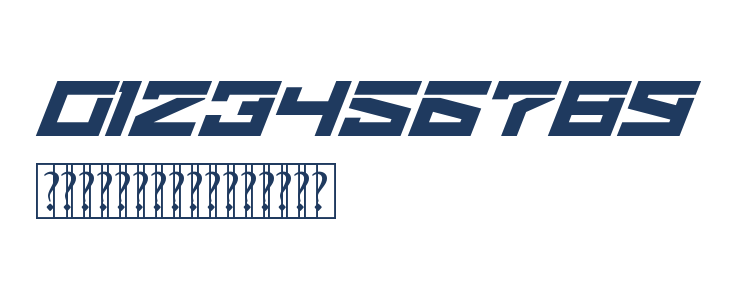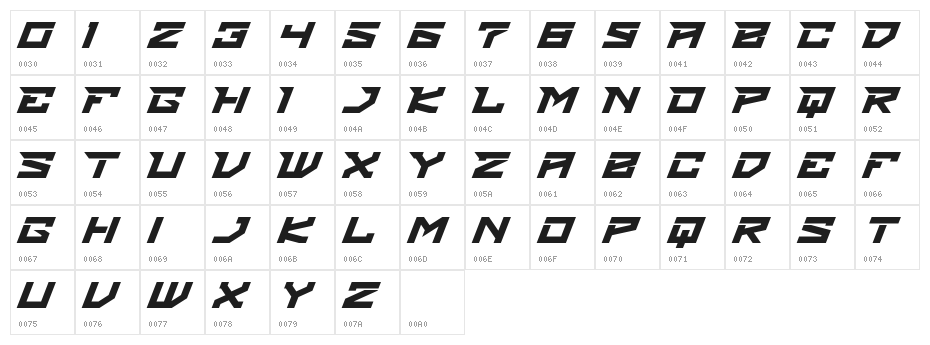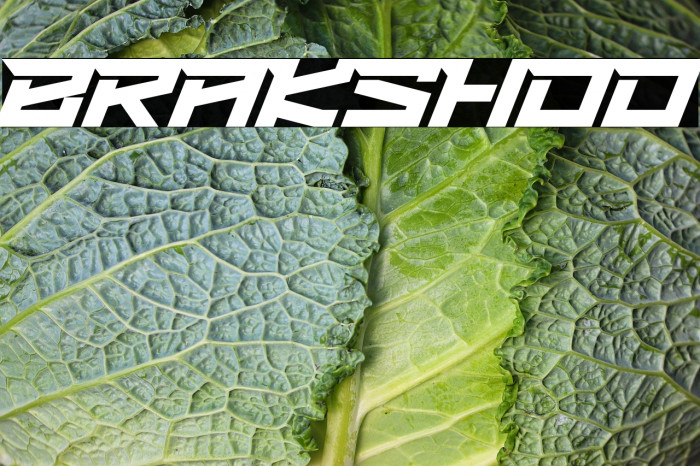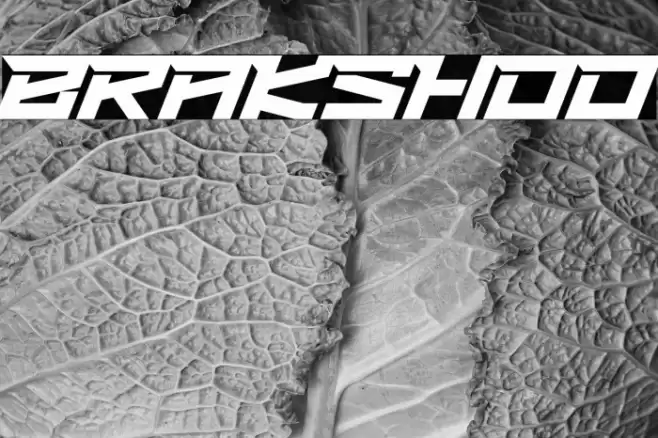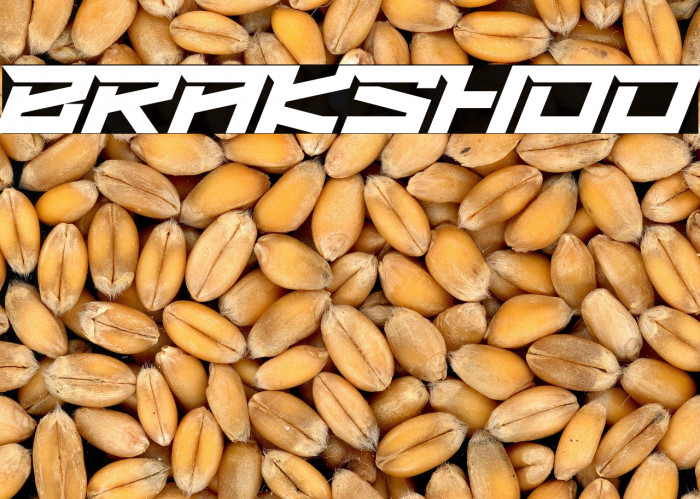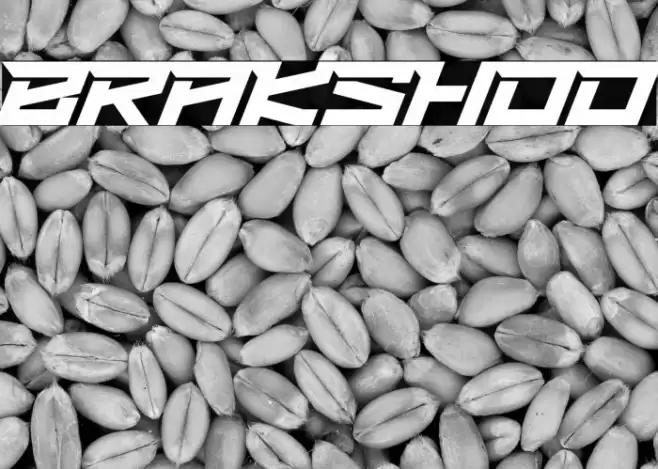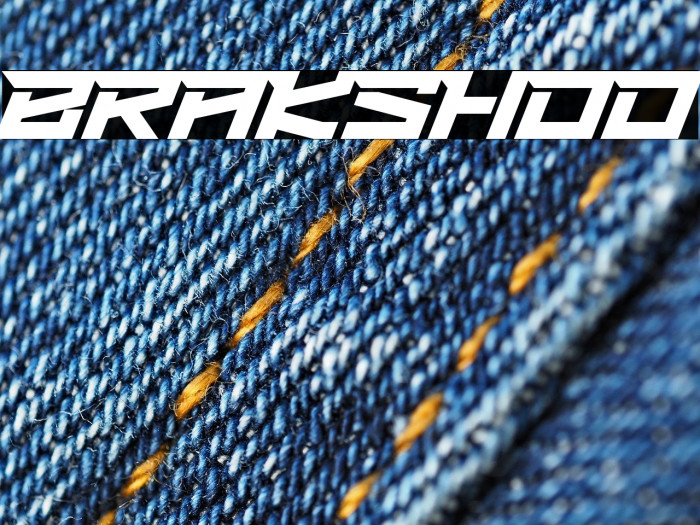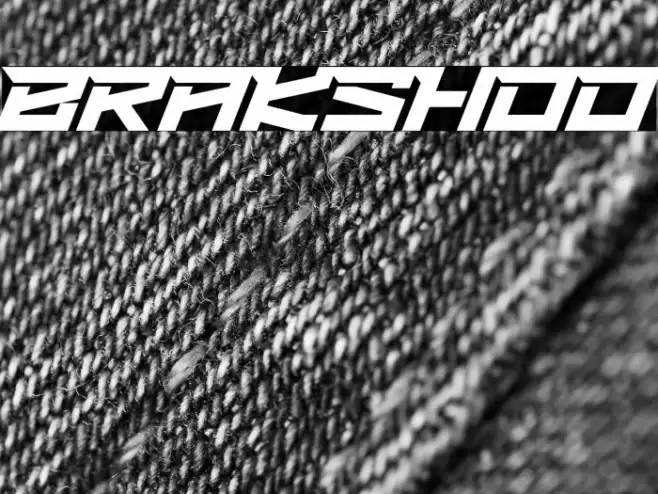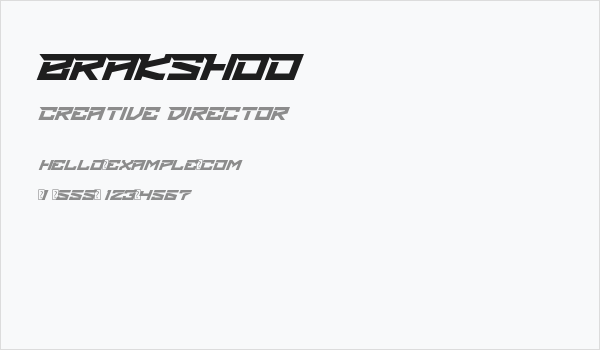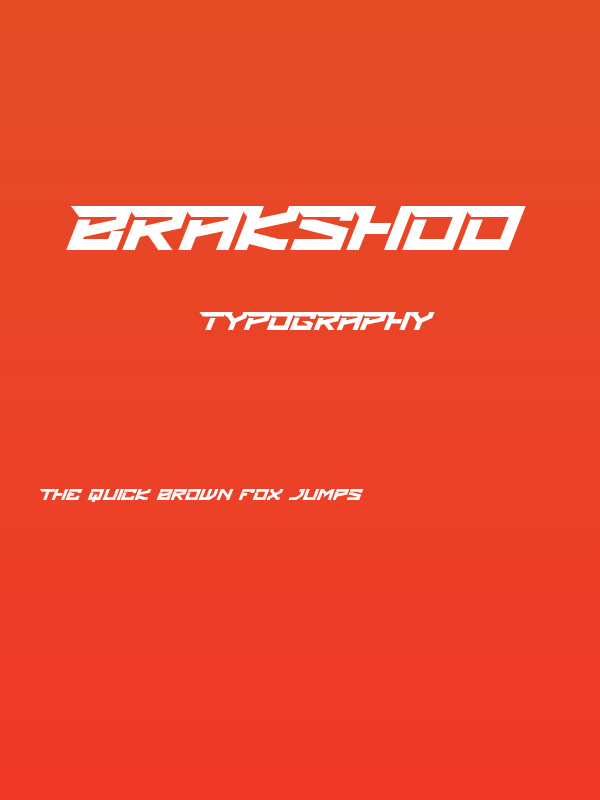
BRAKSHOO Font
BRAKSHOO Description
This font features a bold, angular design with sharp edges and a futuristic aesthetic. The characters are constructed with a dynamic slant, giving a sense of motion and energy. The uppercase and lowercase letters maintain a consistent style, with geometric forms and a strong presence. The numbers and special characters follow the same design principles, ensuring uniformity across all glyphs. This font is ideal for projects that require a modern and edgy look, such as technology branding, sports team logos, or video game titles.
Overall StyleFuturistic, Modern
Proposed ProjectsTechnology branding, sports team logos, video game titles, sci-fi movie posters.